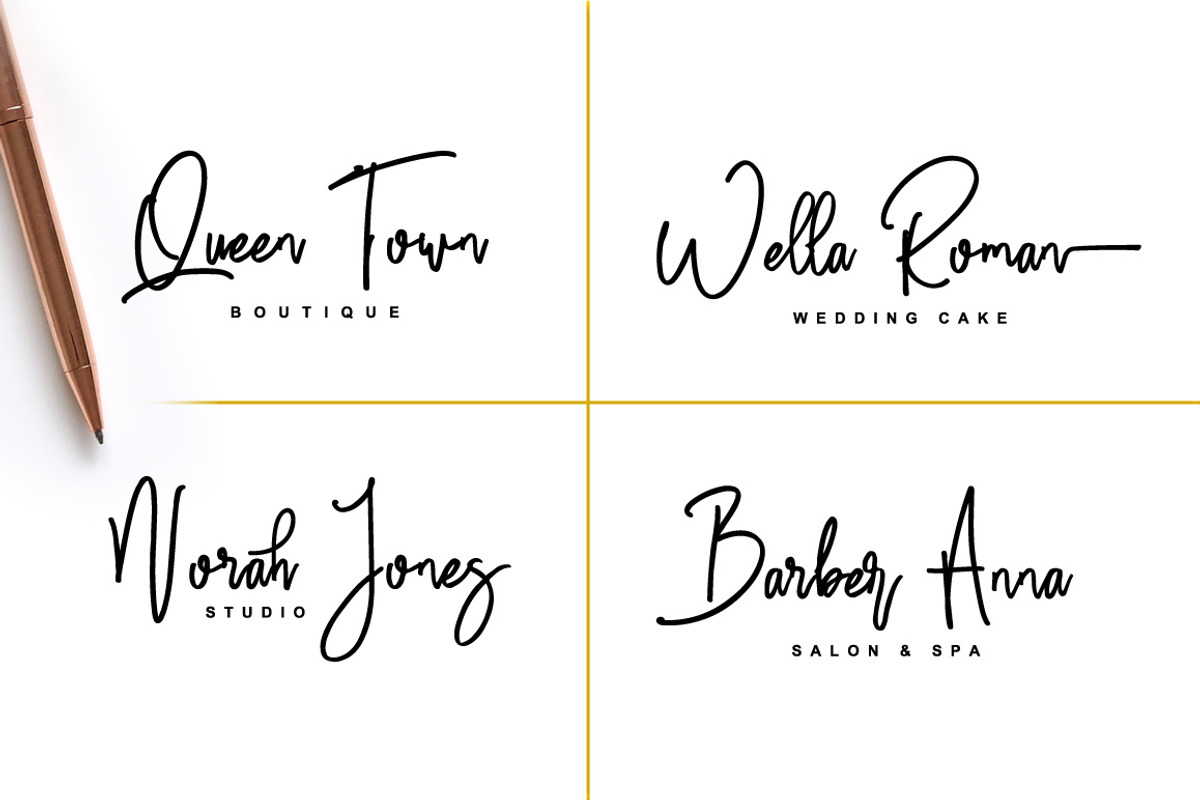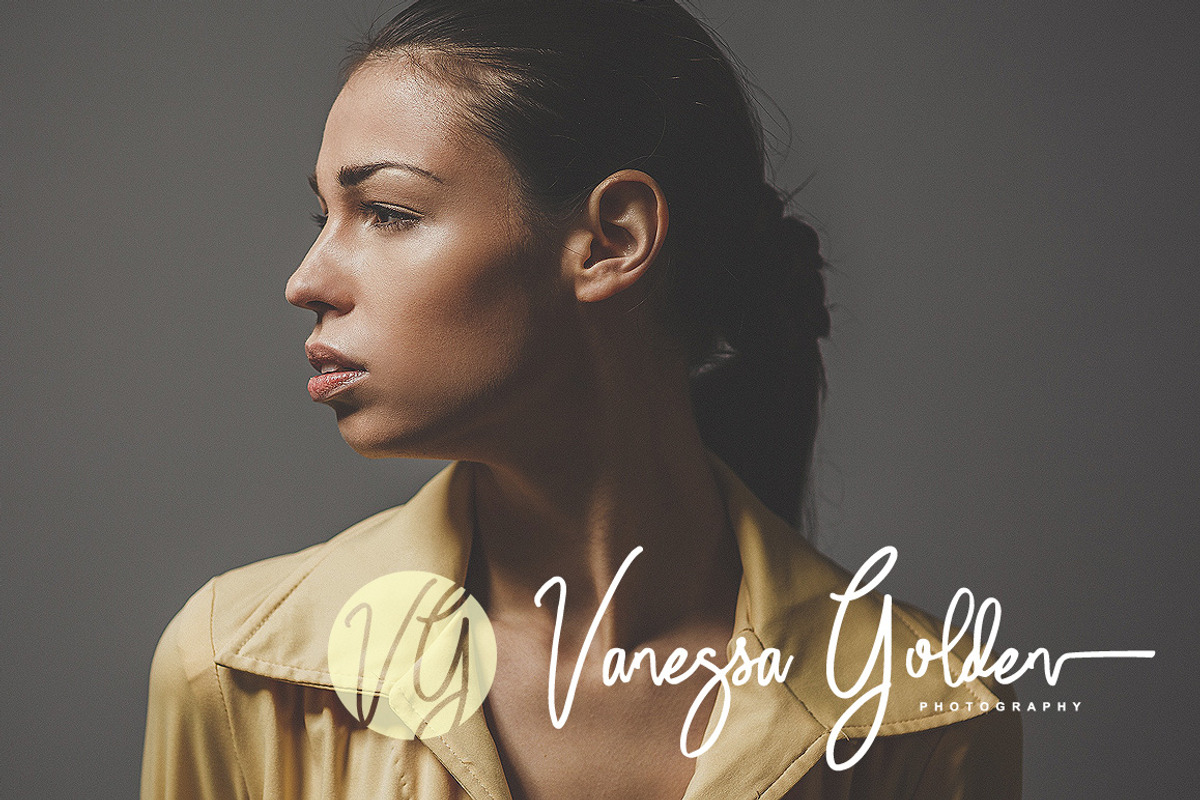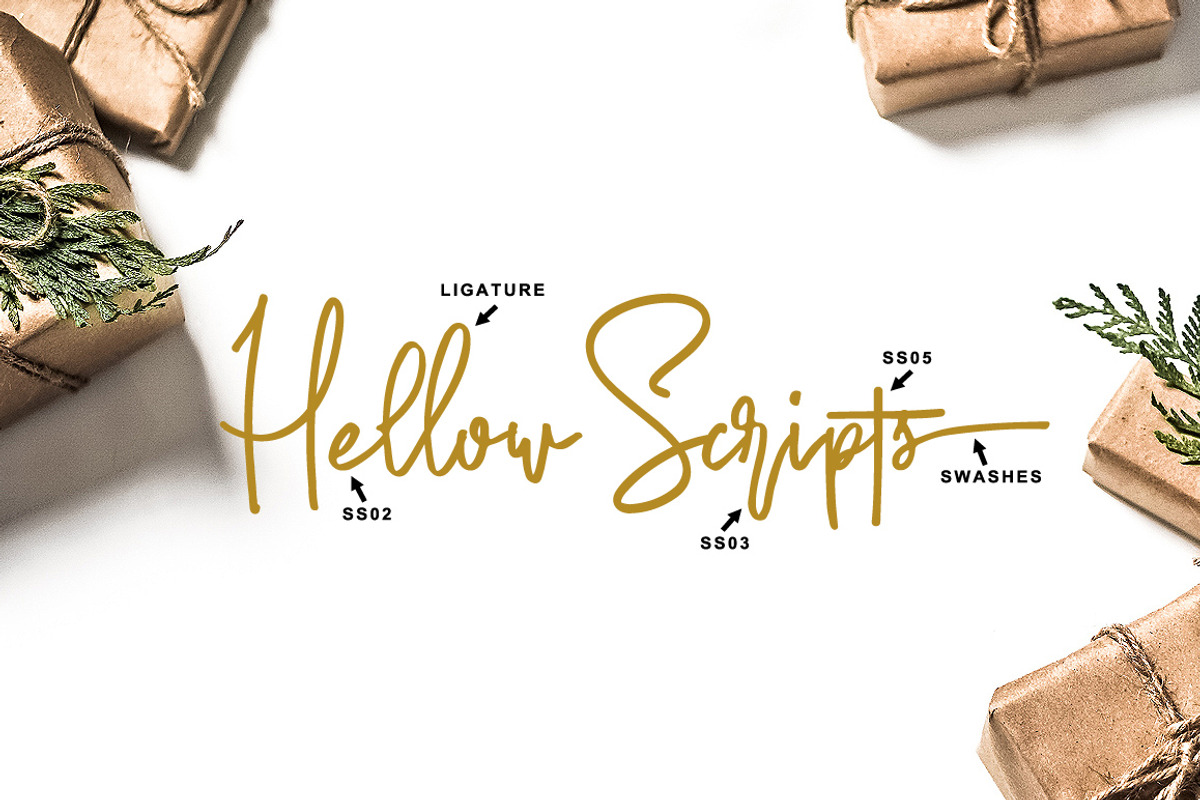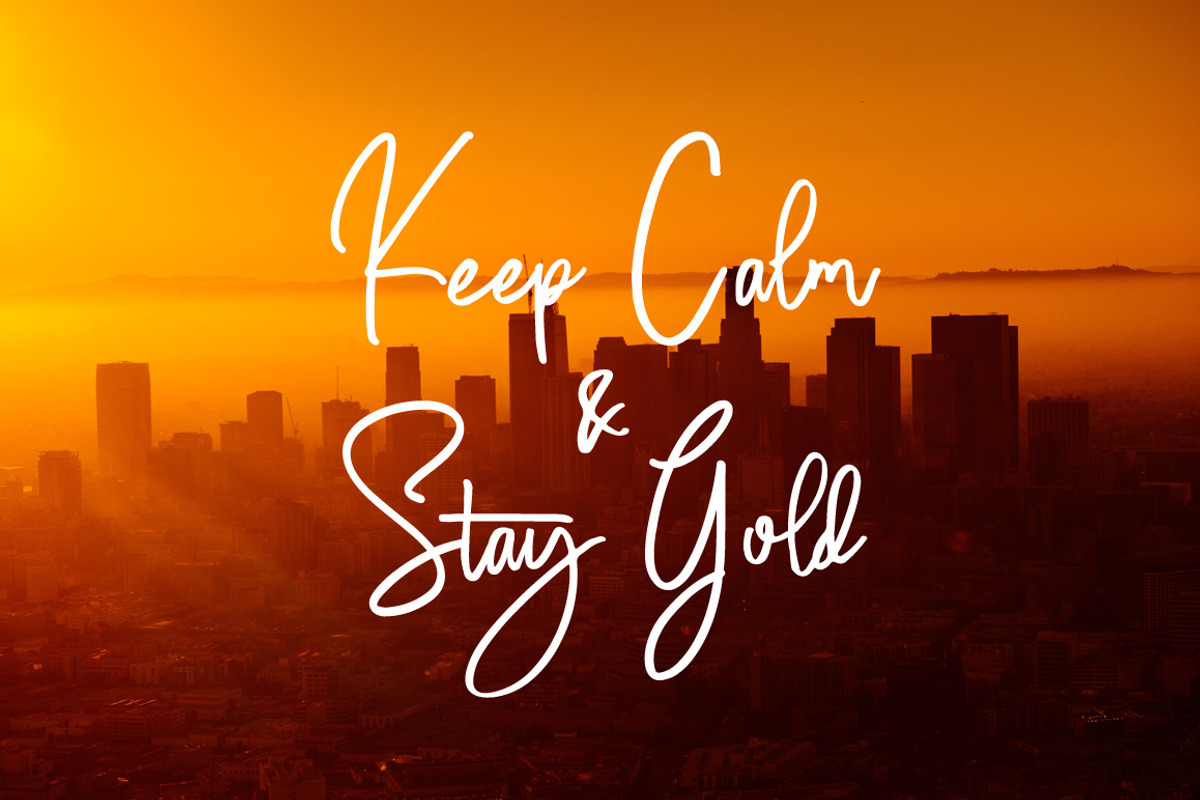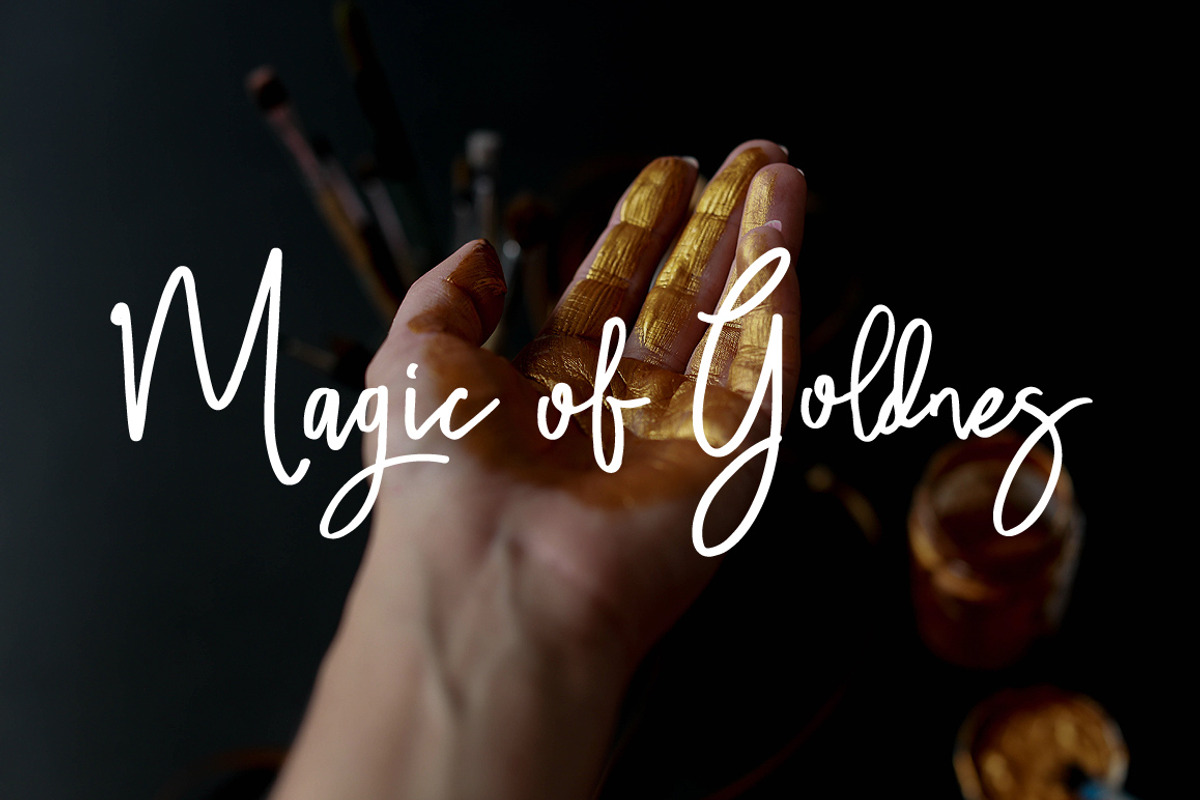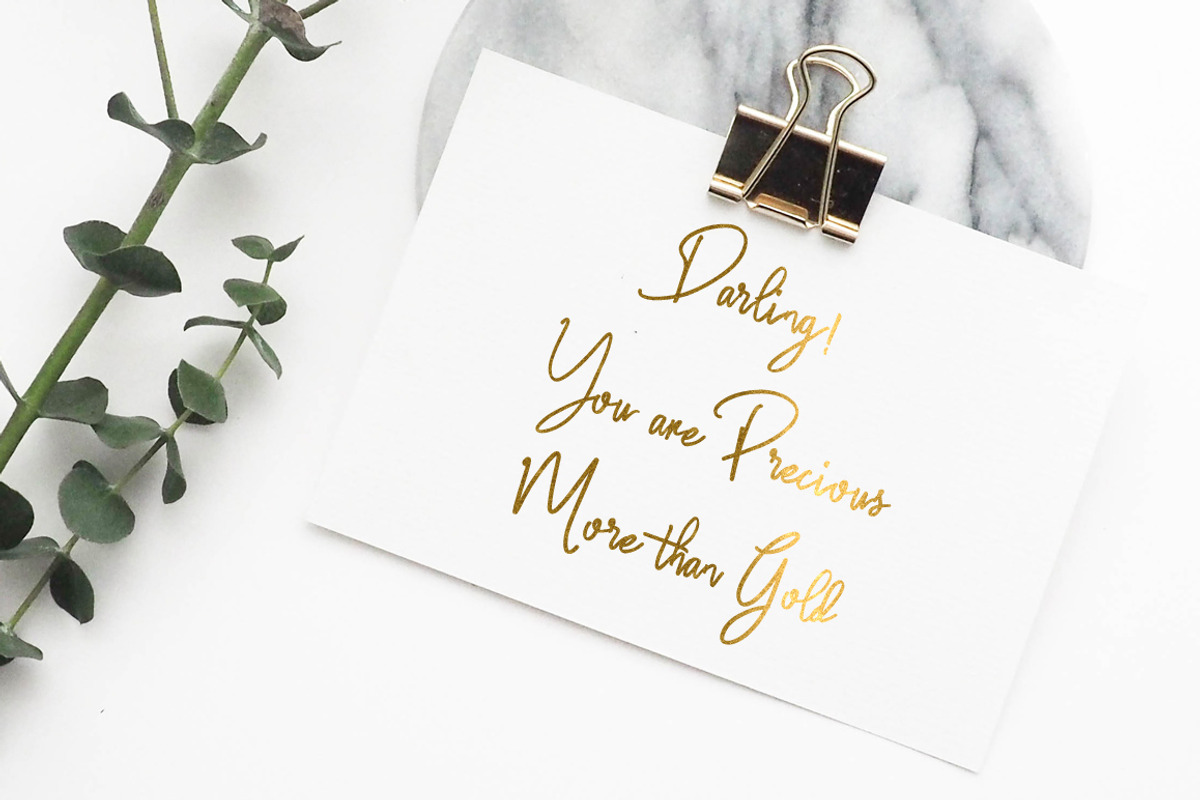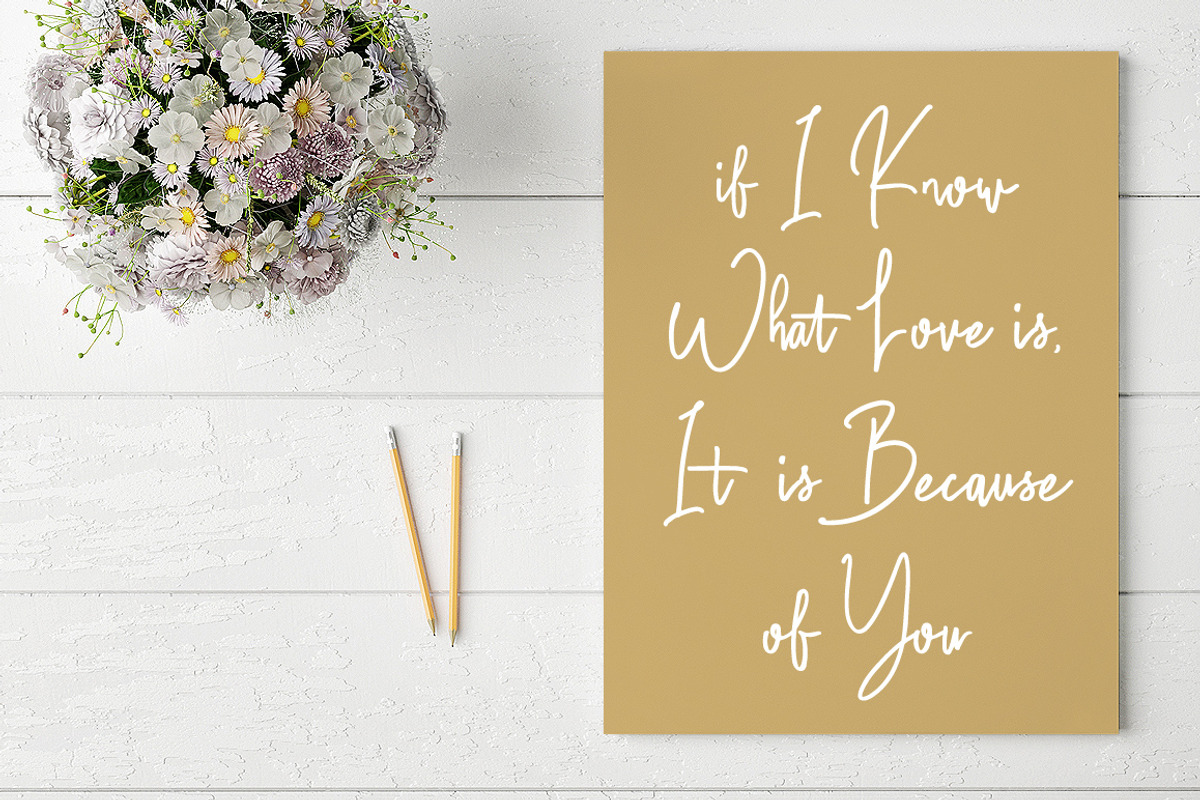
Salute Riches - Handwritten Font
Salute Riches is Handwritten script font with handlettering pen Style, so much opentype feature include of the font. Suitable for design, element design, wedding, event, t-shirt, logo, badges, sticker, and awesome work, etc...